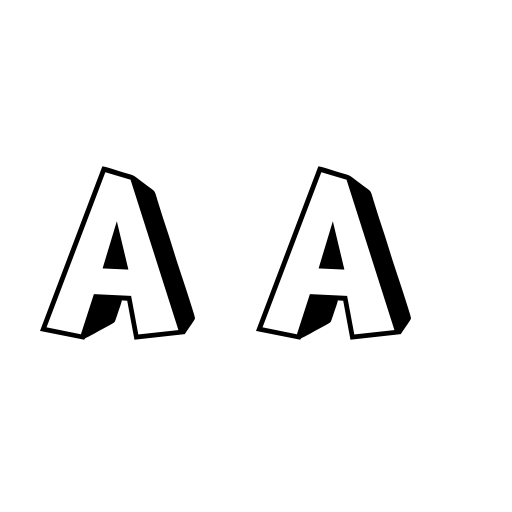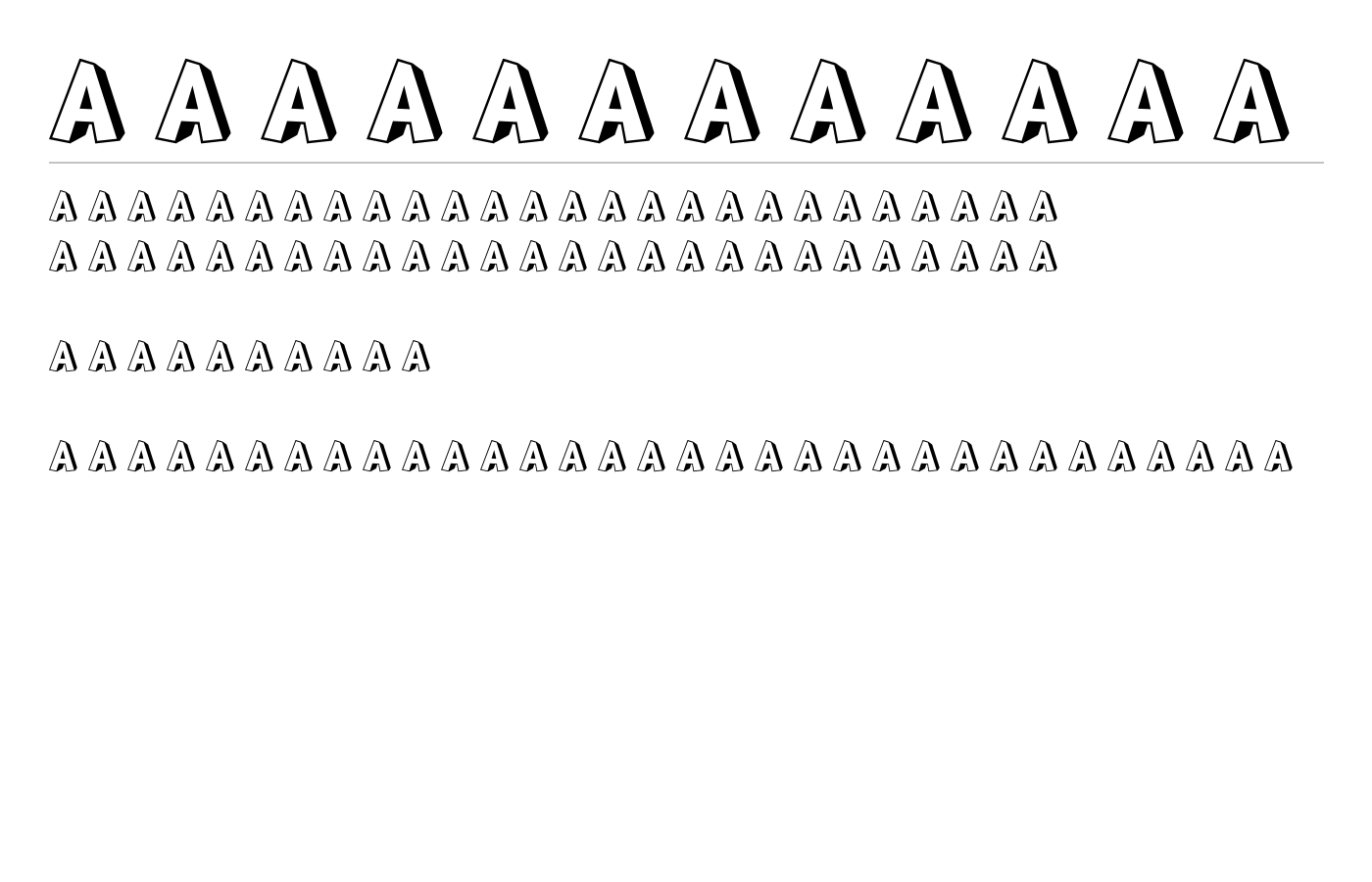
BATAVIA KOTA is a bold, condensed sans serif font with a strong three-dimensional shadow effect that adds a dynamic and playful character. Its sharp angular letterforms and high contrast between the solid face and the shadow make it ideal for eye-catching headlines, logos, and posters where a vibrant, energetic style is desired. This font works well in creative branding and display settings, bringing a modern yet fun and loud personality to the design.
BATAVIA KOTA Font